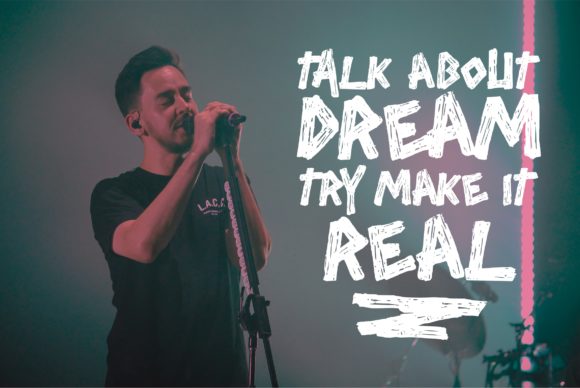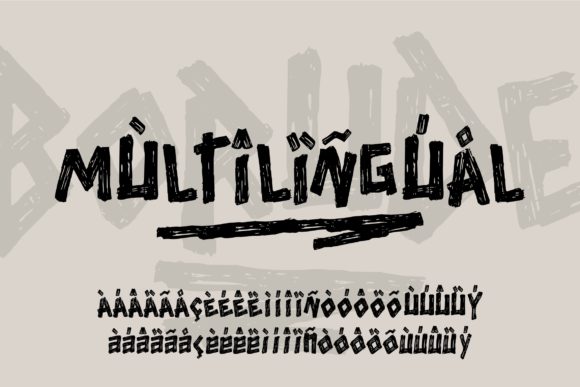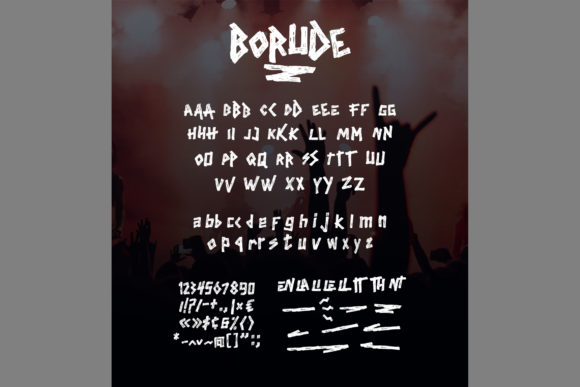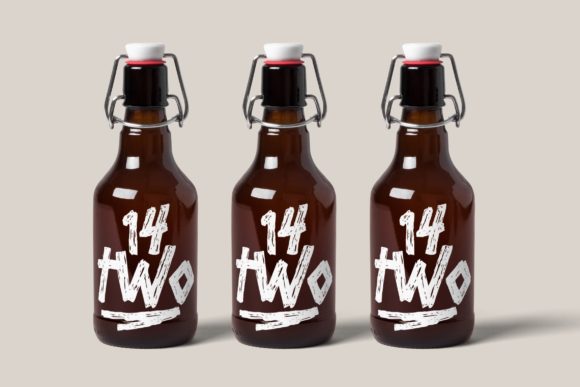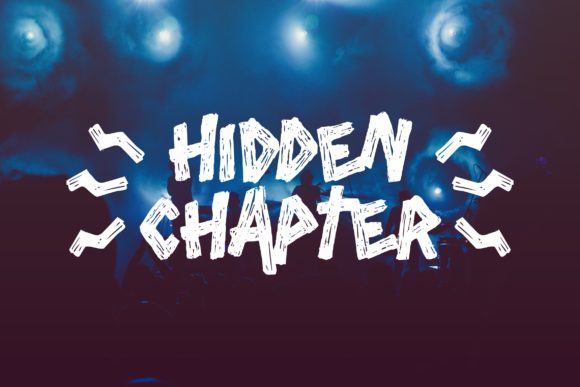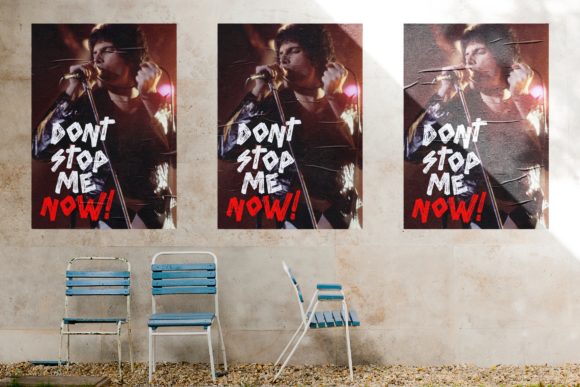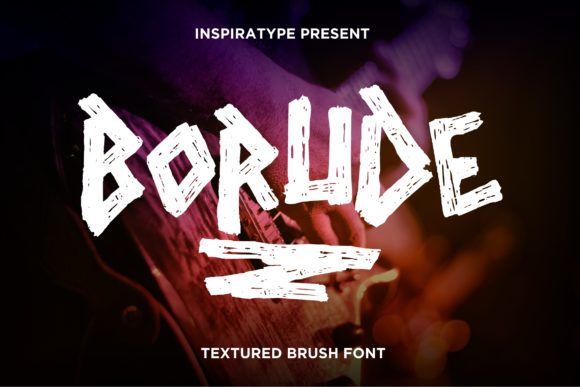
The Ultimate Guide to Borude Font: Unleash Your Design Potential
I’ll never forget the time I was working on a project for a client who wanted a bold, eye-catching font to capture the essence of their brand. I scoured the internet, tried countless fonts, but nothing seemed quite right. That was until I stumbled upon Borude Font. This textured display font has been a game-changer for my designs, and I’m excited to share its spectacular look and feel with you.
An Honest Review of Borude Font
So, what makes Borude Font so special? Let’s dive into the good stuff and a few quirks I’ve discovered.
- 💥 Unique Textured Look: Borude Font boasts a one-of-a-kind textured design that adds depth and character to any project.
- ✅ Highly Versatile: Whether you’re working on a logo, poster, or social media graphic, Borude Font adapts seamlessly to various design contexts.
- 🎨 Customizable: With OpenType features and glyphs, you can experiment with different styles and alternates to make the font your own.
- ⚠️ Legibility at Small Sizes: Borude Font can be a bit tricky to read at smaller font sizes, so be sure to test it thoroughly in your design.
- 🤔 Pairing with Other Fonts: Due to its bold, textured nature, Borude Font can be challenging to pair with other fonts. Experiment with different combinations to find the perfect match.
Borude Font was designed with the intention of creating a bold, eye-catching font that would add texture and character to designs. The designer aimed to craft a font that would be both versatile and customizable, making it perfect for a wide range of creative projects.
| Font Name | Borude Font |
| Author | InspiraType |
| What makes Borude Font unique? | Borude Font boasts a one-of-a-kind textured design that adds depth and character to any project. |
| Is Borude Font difficult to read? | Borude Font can be a bit tricky to read at smaller font sizes, but it’s perfect for headlines and titles. |